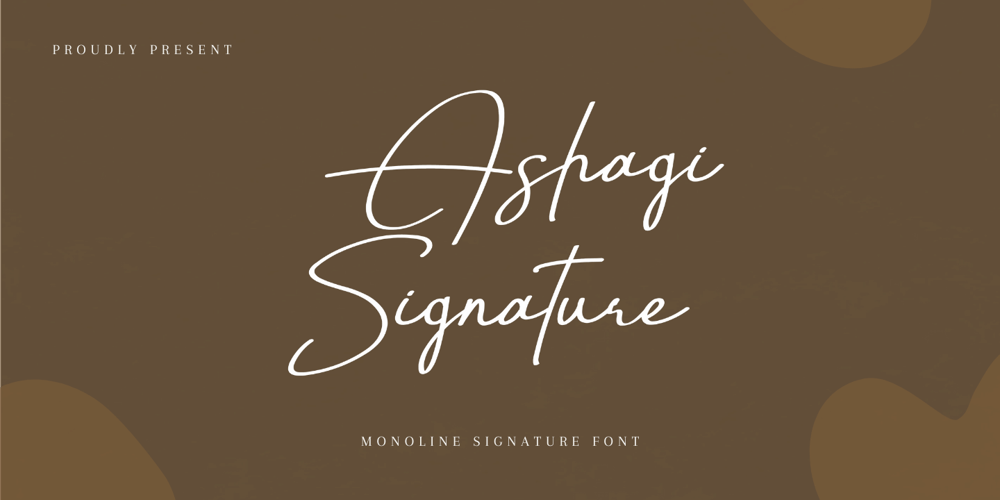
Ashagi Signature Font Family was designed by Ali Sifak Muftari and published by Liartgraphic. Ashagi Signature contains 1 styles and family package options. Hello guys!How are you guys? I bet it’s great!Introducing our latest product, we call this product the Ashagi signature fontAshagi signature is a monoline script type fontWith a unique and firm touchAshagi signature font is great to use on:fashion magazines, logos, photography, landing pages, flyers, social media and so onWhat’s included- Ashagi signature- multilingual support- alternative- ligaturesThank you, best regardsLiarttyype